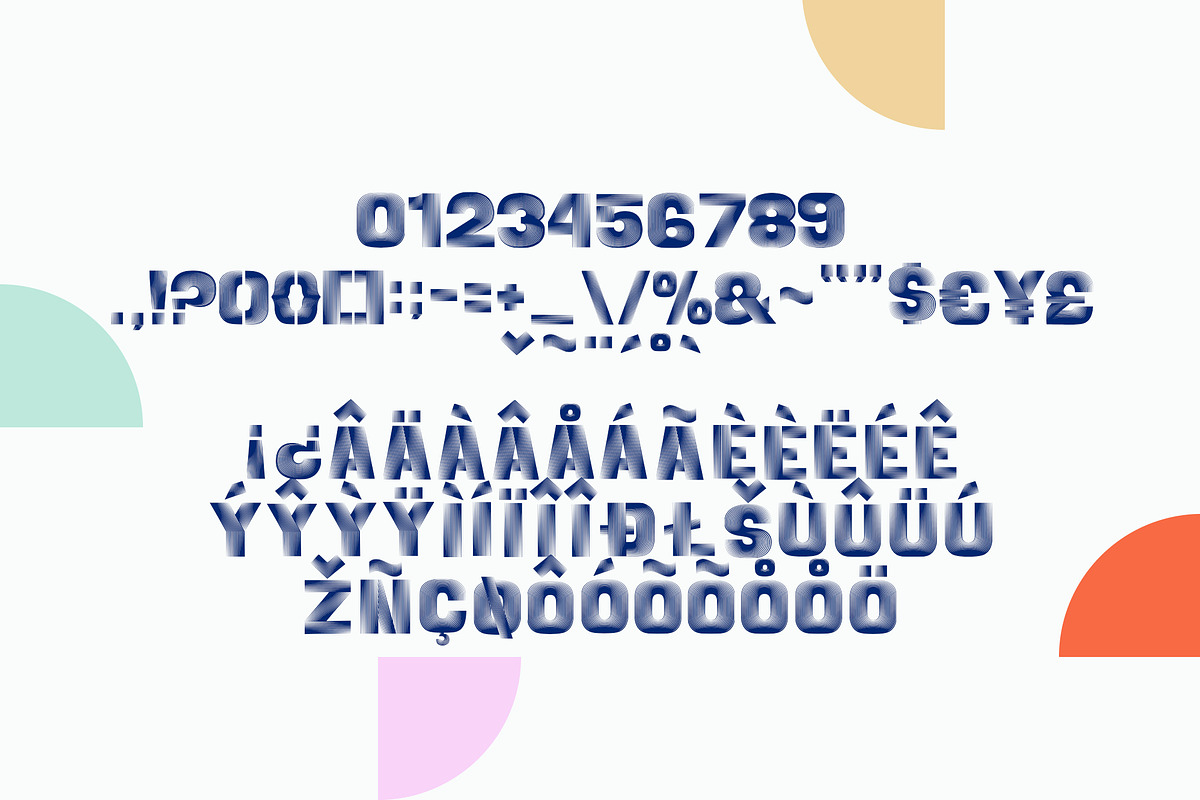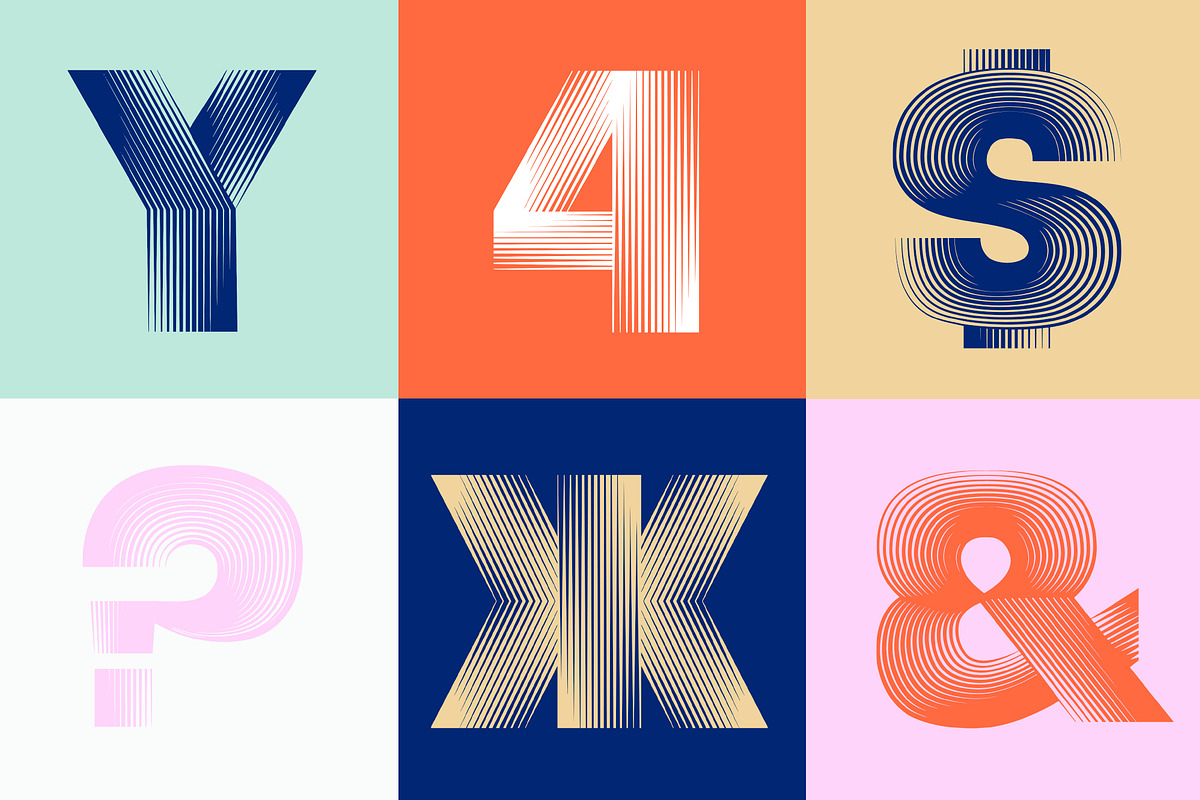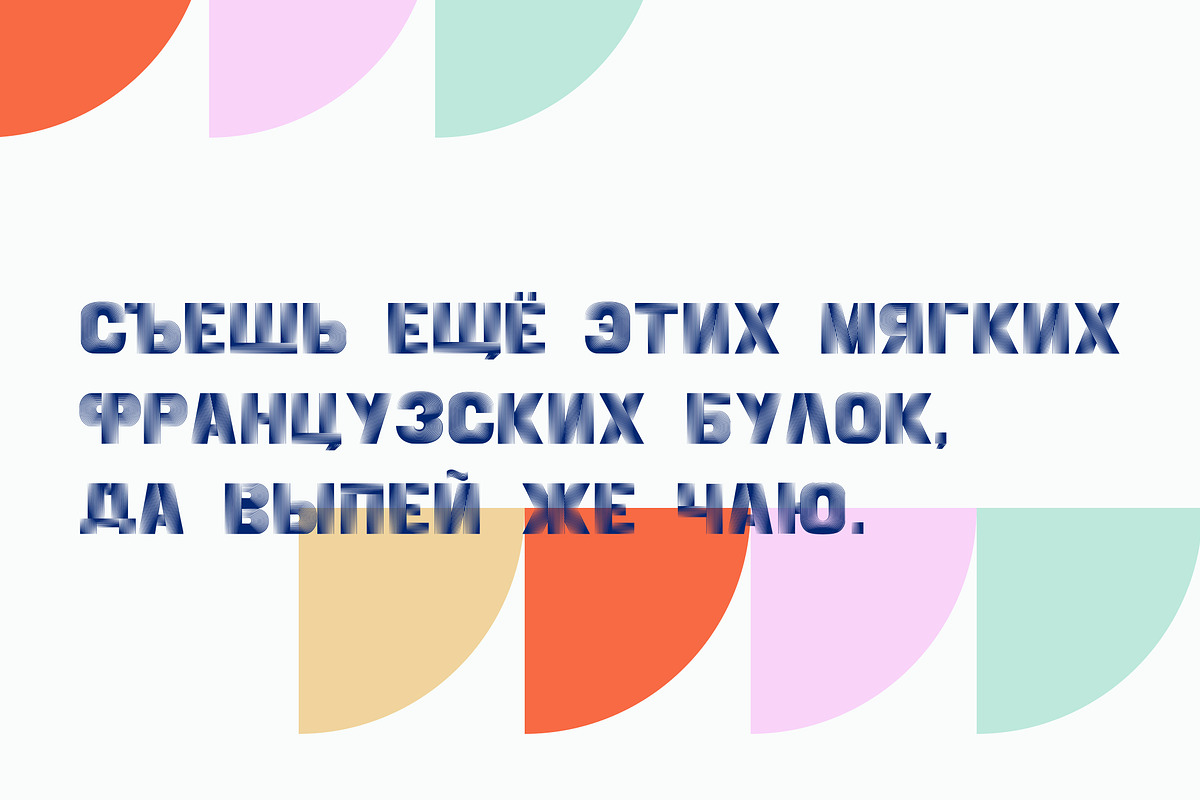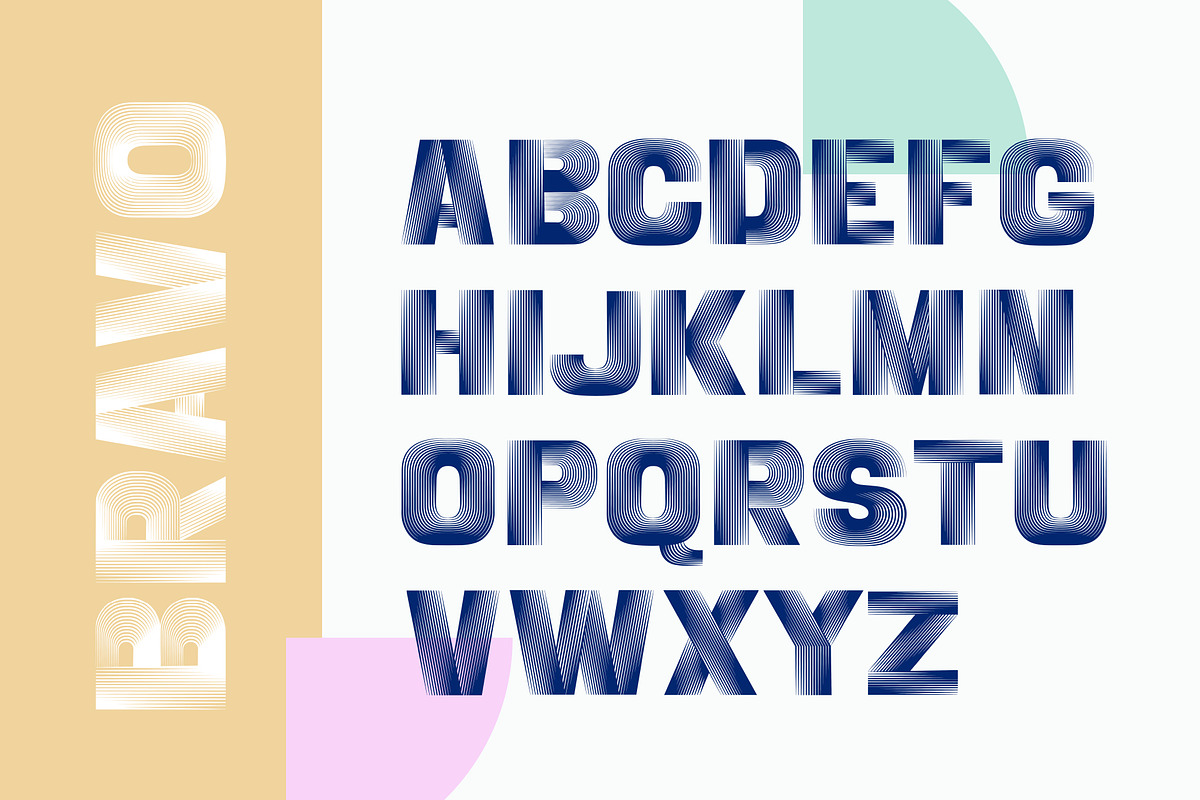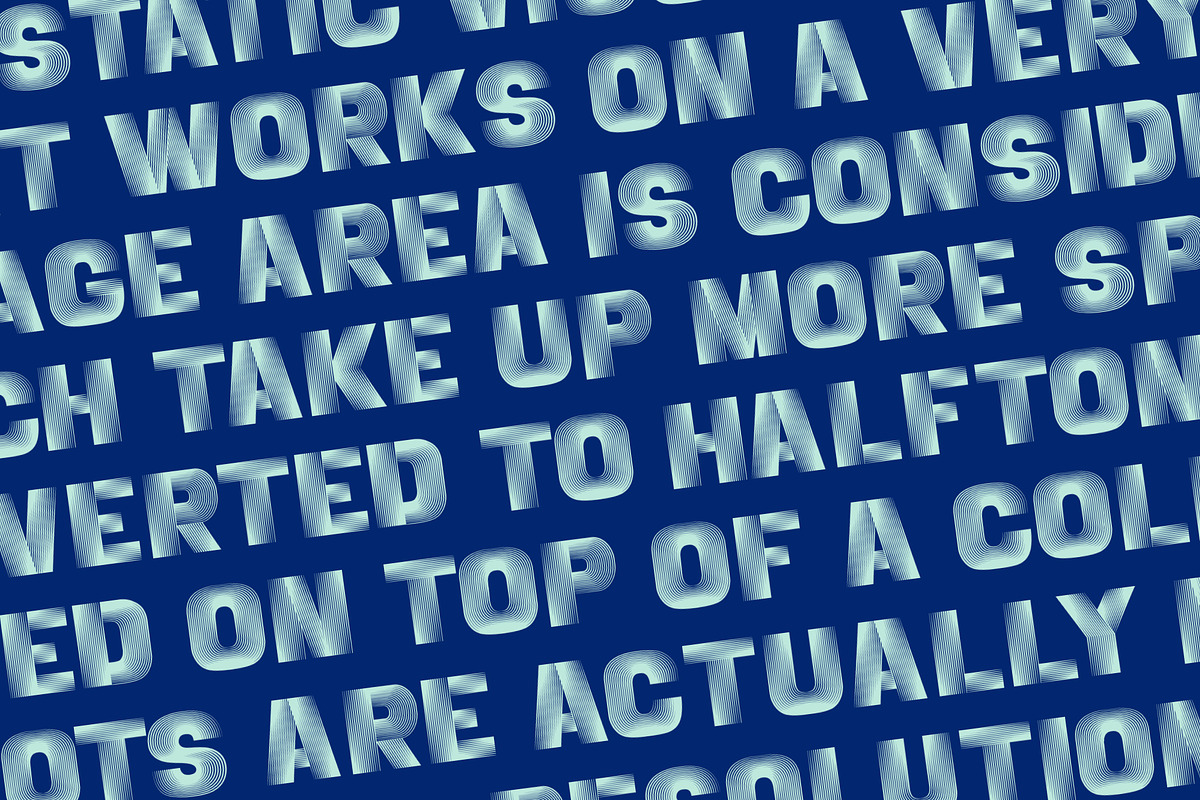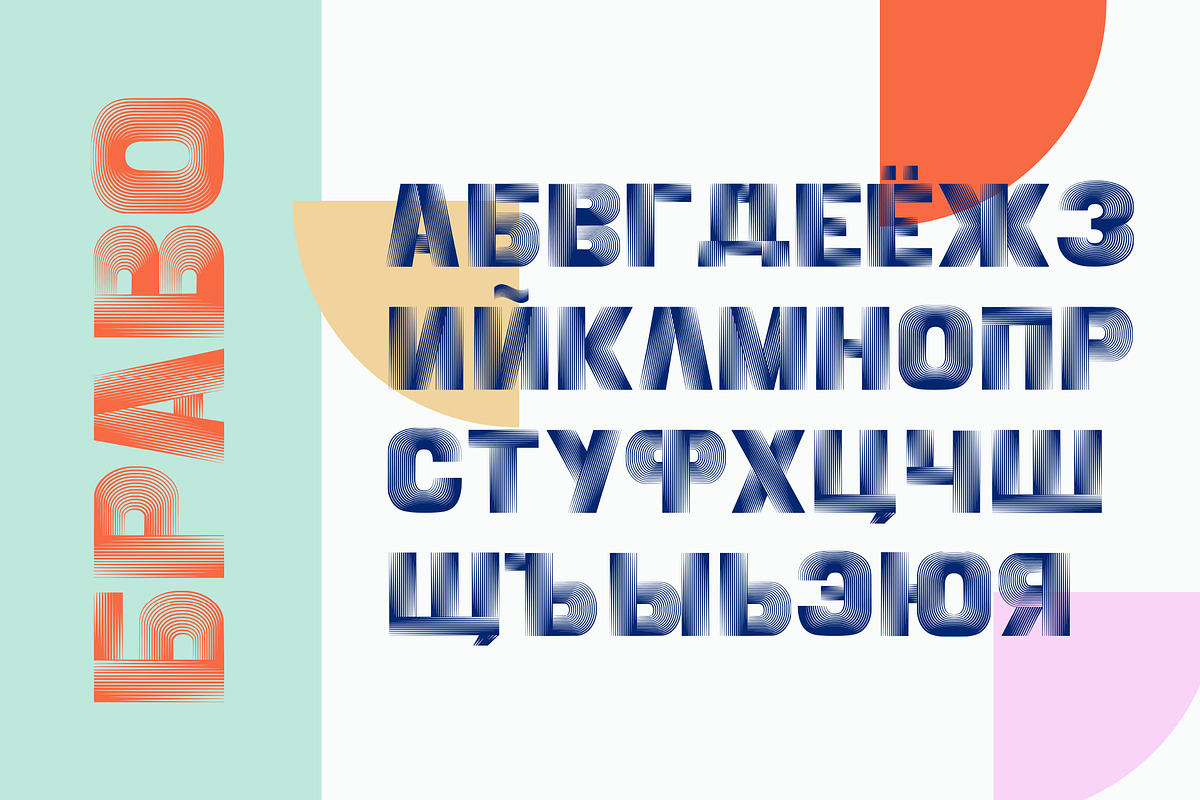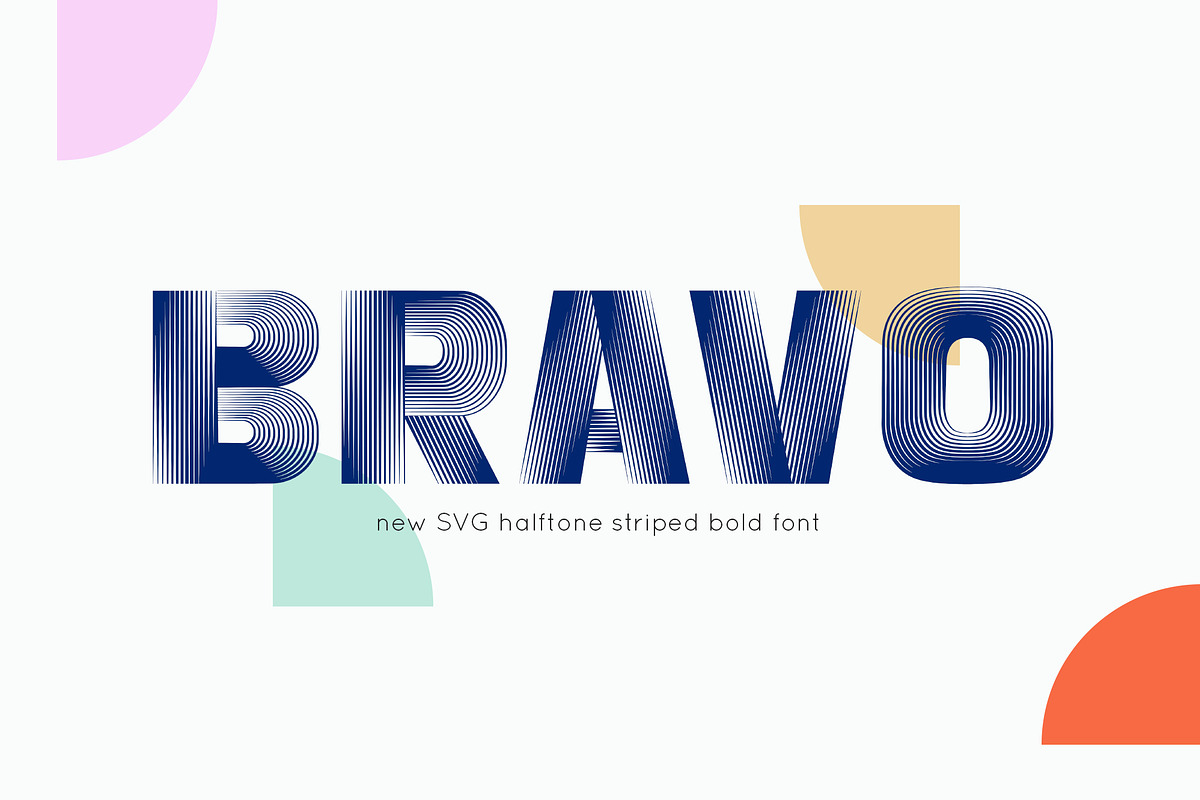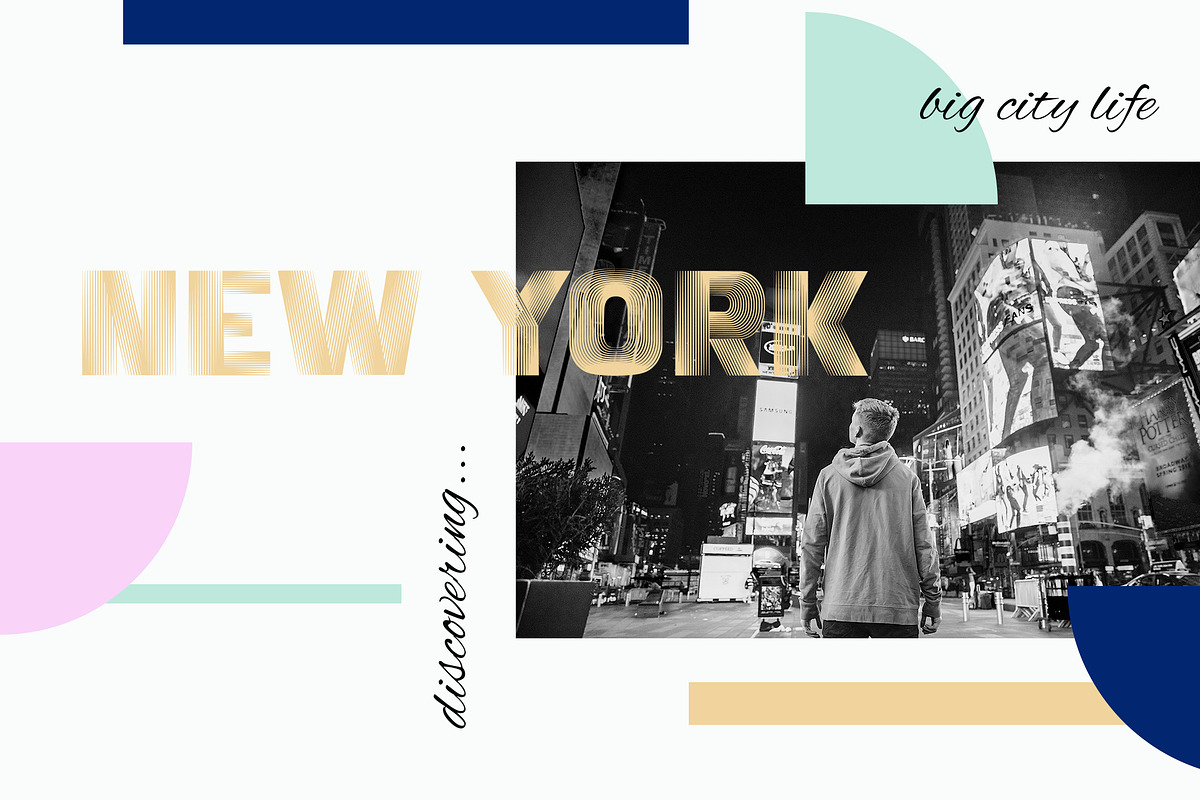
Bravo - SVG Striped Typeface
BRAVO is extra-loud bold halftone striped SVG modern font. BRAVO is perfect for designers looking to leave an impression. A simple but significant. If you want your message to scream and shout, then BRAVO is your choice.
It is perfect for multiple contexts. Works great in posters, flyers, logos, headlines, packaging, advertising, branding and so much more. This font will easily help you to create the best urban and dynamic designs. Posters and flyers will be visible from afar with the help of massive letters' shapes.
BRAVO hosts 2 font styles:
Every font has uppercase letters, numbers & basic punctuation, multilingual support (French, German, Italian, Norwegian, Portuguese, Spanish, Swedish, Swiss German).
BRAVO SVG font has ultra-textured and transparent letters with halftone effect. It is a technique that simulates tone gradations by using stripes. These stripes vary in size, spacing and sometimes even shape to generate a halftone striped effect.